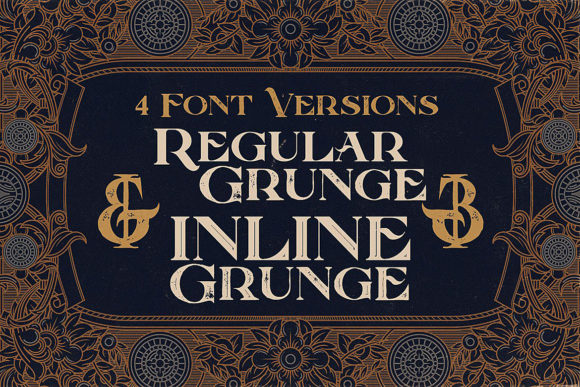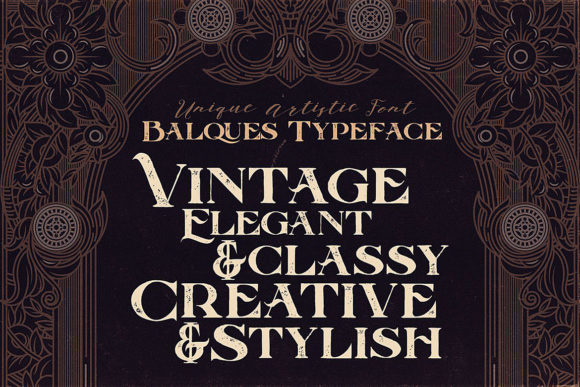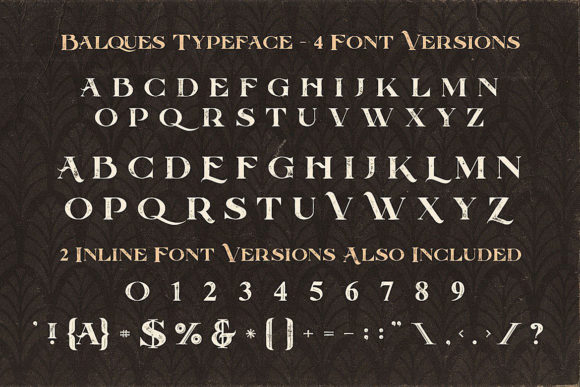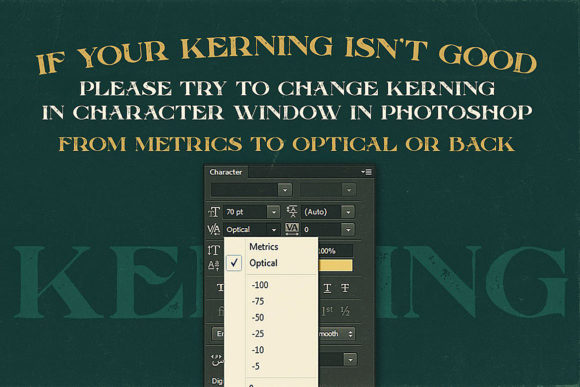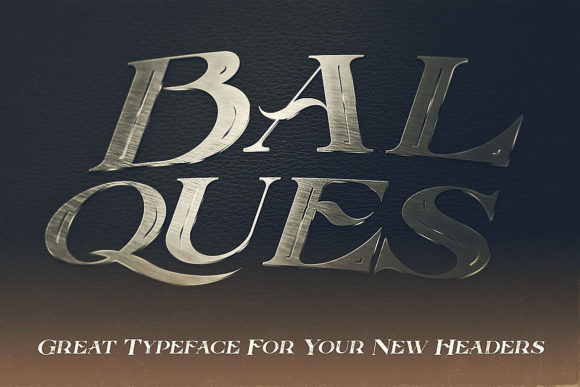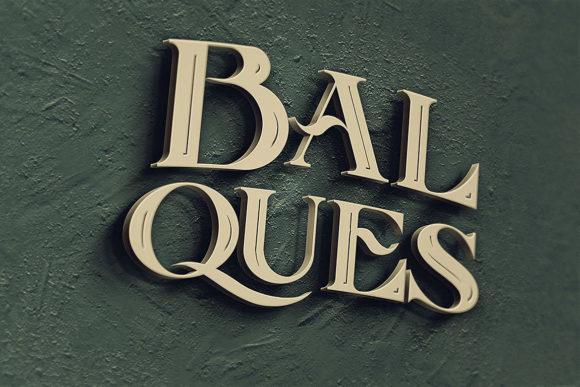
Introducing Balques Font: A Unique and Vintage Display Font
Are you tired of using the same old fonts in your designs? Look no further! Balques Font is a game-changer for designers and crafters alike. This unique and vintage display font is sure to add a touch of elegance and sophistication to any project. In this article, we’ll dive into the features and benefits of Balques Font, and explore how it can elevate your designs.
What is Balques Font?
Balques Font is a display font that boasts a distinctive and retro aesthetic. With its intricate details and classic charm, it’s perfect for creating eye-catching headlines, titles, and logos. The font comes in 4 unique styles, giving you the flexibility to experiment with different designs and find the perfect fit for your project.
Key Features of Balques Font
- Unique and Vintage Design: Balques Font features a one-of-a-kind design that’s sure to make your projects stand out. Its vintage charm is perfect for creating designs that evoke a sense of nostalgia and classic elegance.
- 4 Unique Styles: With 4 different styles to choose from, you can experiment with different looks and find the perfect fit for your project. Whether you’re creating a logo, headline, or title, Balques Font has got you covered.
- High-Quality Design: Balques Font is designed with high-quality craftsmanship in mind. The font is carefully crafted to ensure that it’s clear, legible, and visually appealing.
Benefits of Using Balques Font
So, why should you choose Balques Font for your next project? Here are just a few benefits of using this amazing font:
- Adds Visual Interest: Balques Font adds a touch of elegance and sophistication to any project. Its unique design and vintage charm are sure to capture the attention of your audience.
- Versatile: With 4 unique styles to choose from, Balques Font is versatile enough to be used in a variety of projects, from logos and headlines to titles and more.
- Stand Out from the Crowd: Balques Font is a unique and distinctive font that’s sure to make your projects stand out from the crowd. Say goodbye to boring, generic fonts and hello to a design that truly reflects your brand’s personality.
Who Can Benefit from Balques Font?
Balques Font is perfect for a variety of designers and crafters, including:
- Graphic Designers: Whether you’re creating logos, brochures, or business cards, Balques Font is a great addition to your design toolkit.
- Crafters: If you’re a crafter who loves to create handmade cards, invitations, and other paper crafts, Balques Font is a great way to add a touch of elegance and sophistication to your projects.
- Digital Artists: Balques Font is also perfect for digital artists who want to add a unique and vintage touch to their artwork.
- Experiment with Different Styles: Try out each of the 4 unique styles to see which one works best for your project.
- Pair with Other Fonts: Balques Font pairs well with a variety of other fonts. Experiment with different combinations to find the perfect look for your project.
- Use in a Variety of Projects: Don’t be afraid to get creative with Balques Font! Use it in logos, headlines, titles, and more.